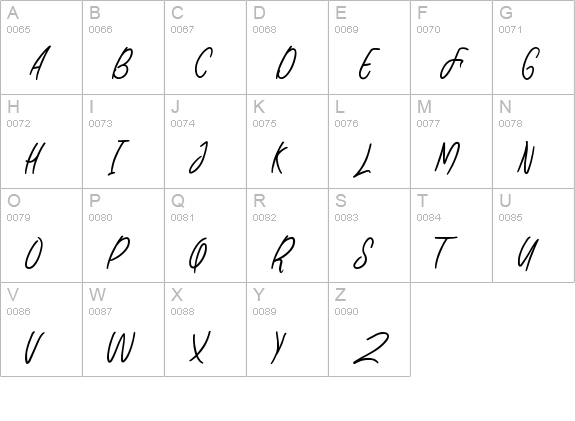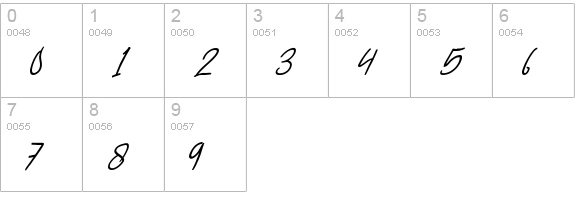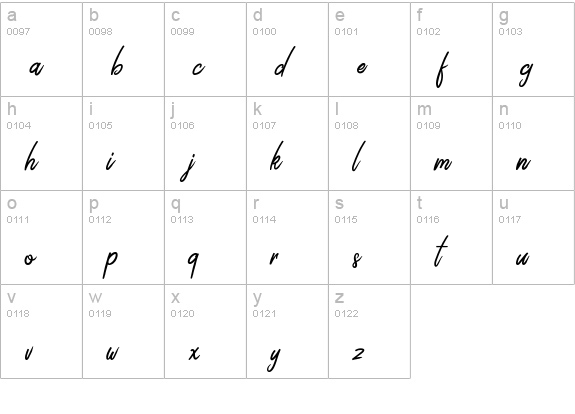
Harmonic Script Font Details
Harmonic Script is a free for personal use font in the Script > Handwritten category, designed by rifuki. It has been downloaded 543 times and is available for Windows, Mac and Linux.
Harmonic Script is a beautifully crafted font that exudes elegance and sophistication. With its harmonious curves and flowing lines, this script font is perfect for adding a touch of refinement to any design project. Whether you're working on wedding invitations, branding materials, or any other creative endeavor, Harmonic Script will surely make a lasting impression.